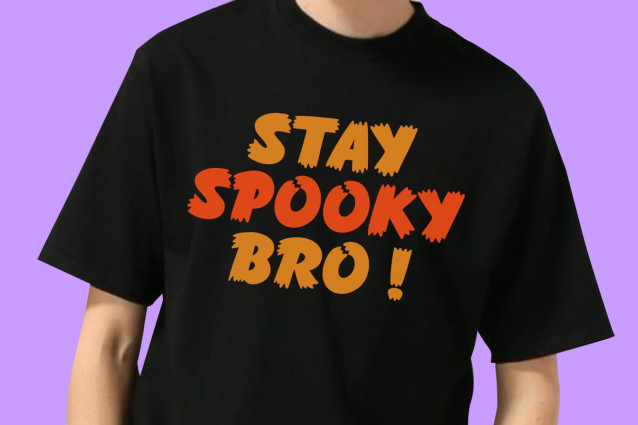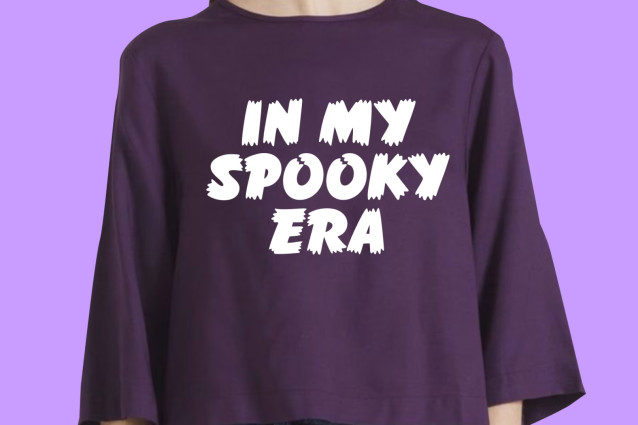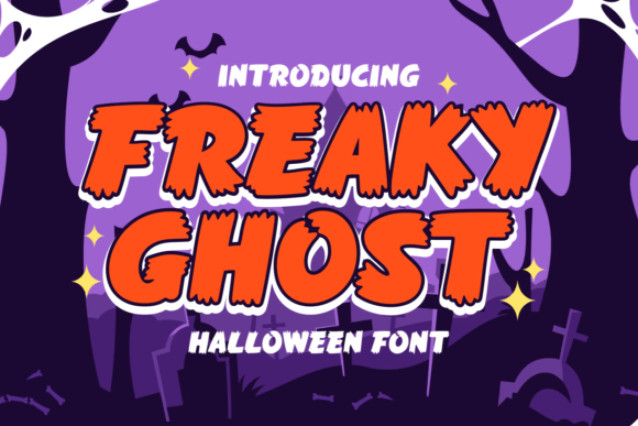
Freaky Ghost is a bold, playful Halloween display font with a spooky, hand-drawn personality. Its heavy, slightly italicized letterforms feature jagged, frayed edges that mimic torn fabric or ghostly silhouettes, giving it a fun yet eerie aesthetic.
Best suited for seasonal event posters, Halloween party invitations, spooky apparel, themed merchandise, stickers, and social media graphics. It works exceptionally well in large headline sizes where the textured, ragged outlines can stand out.